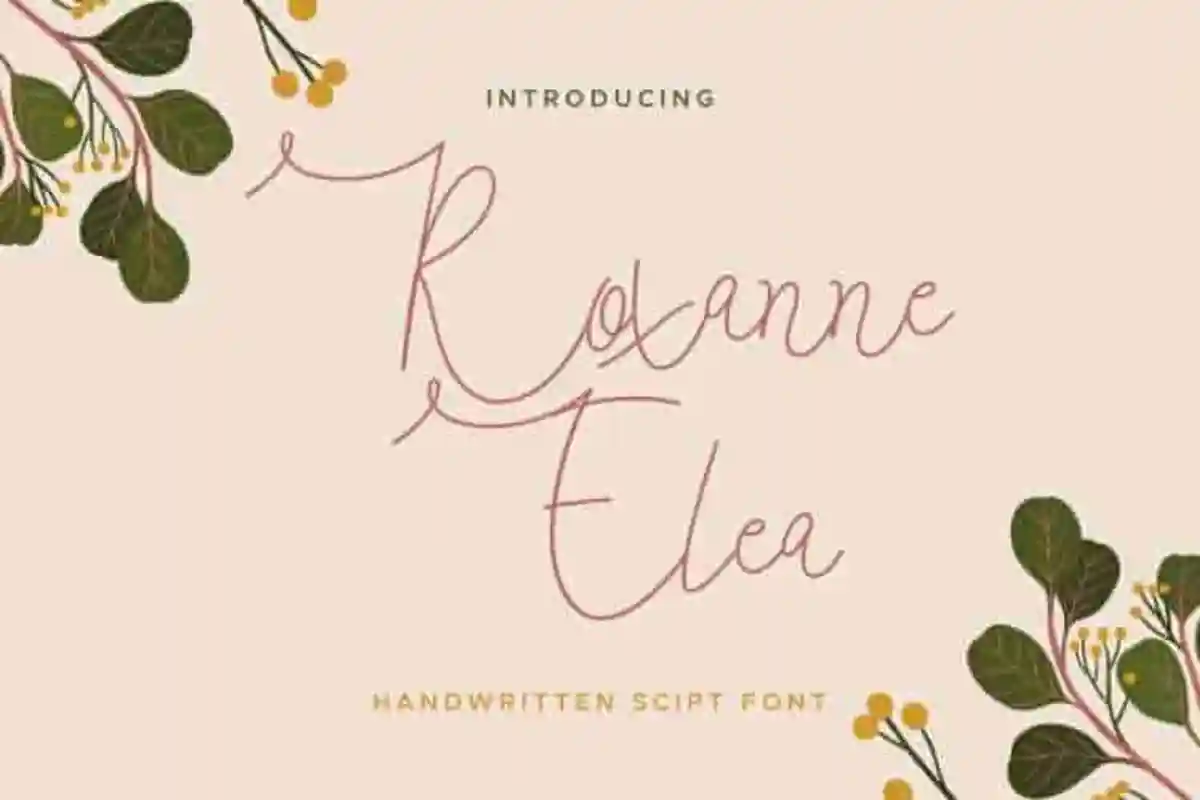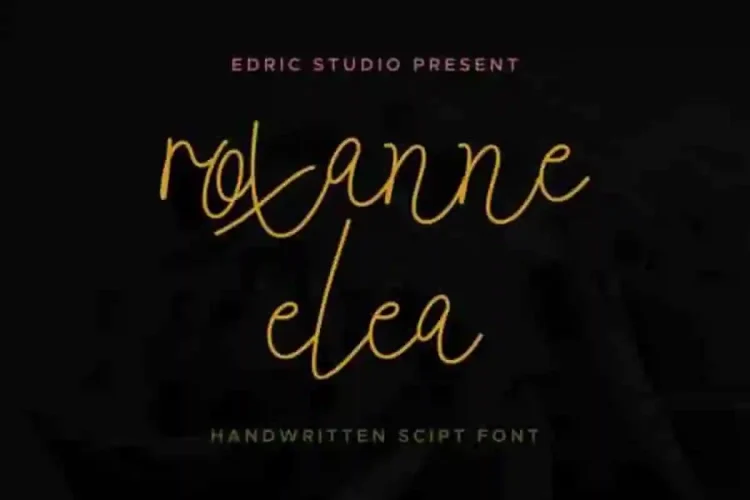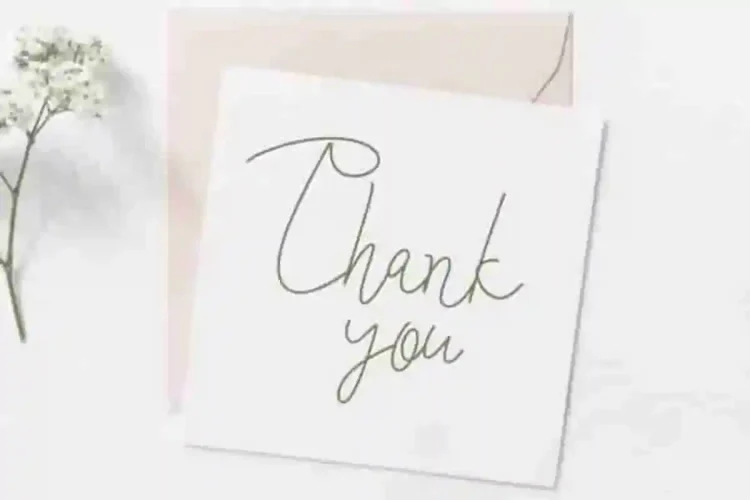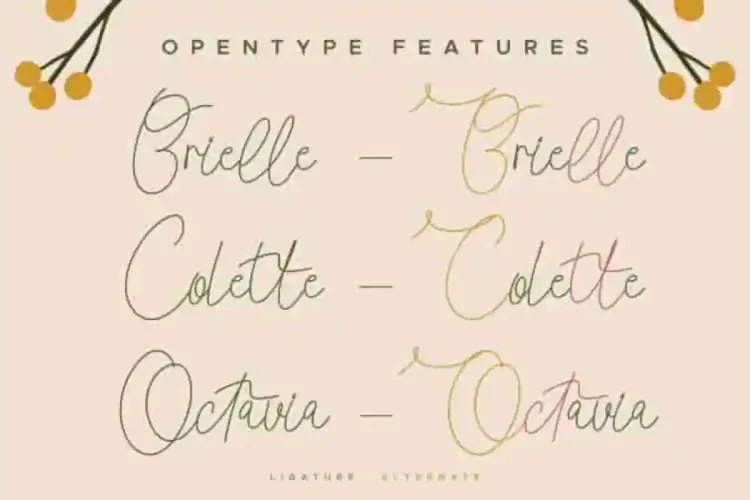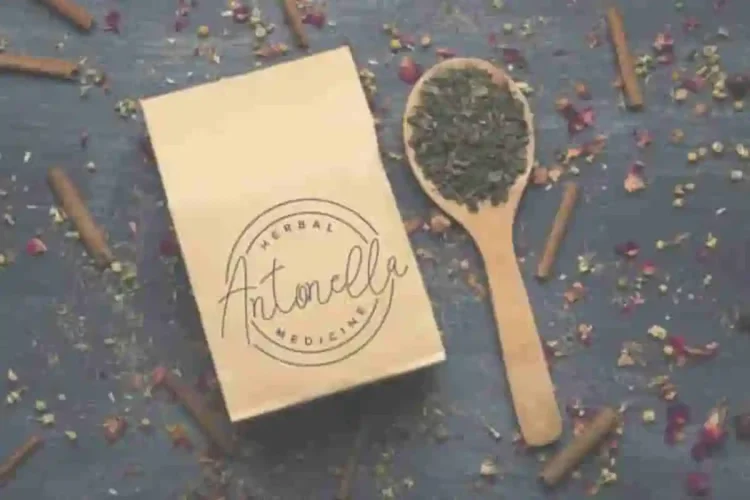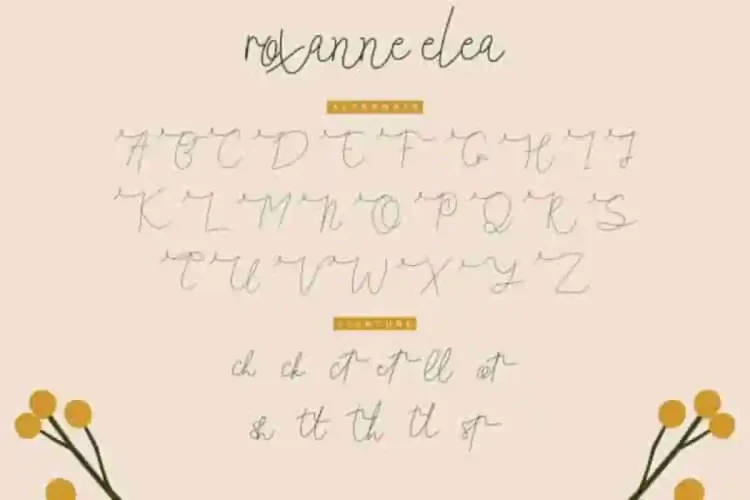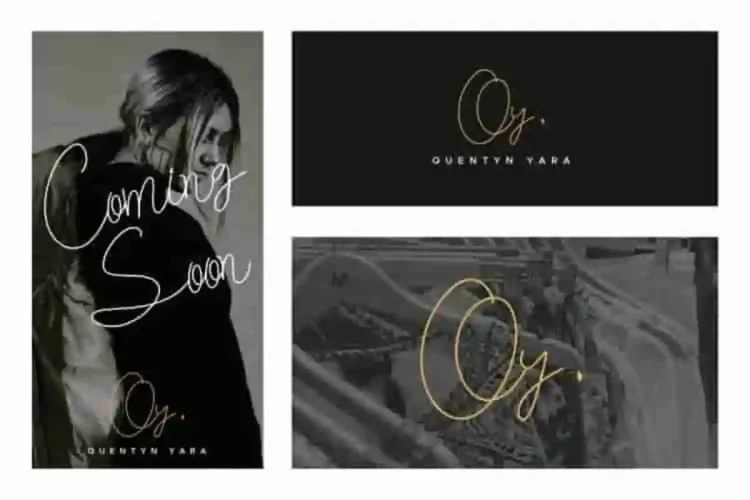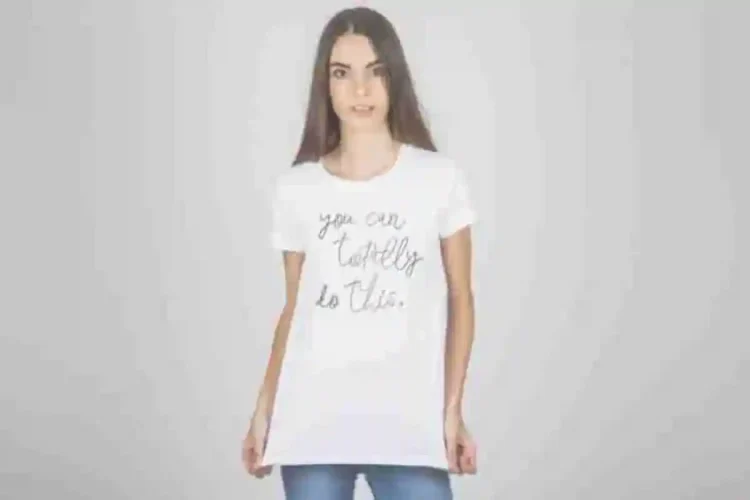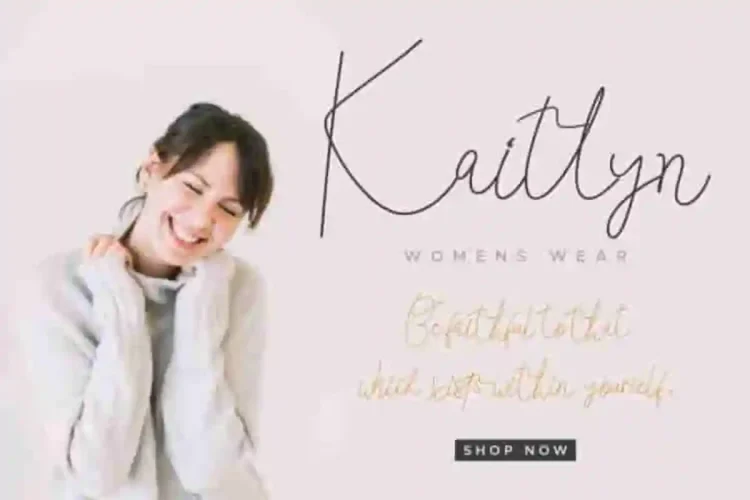
Roxanne Elea Calligraphy Font
Roxanne Elea Calligraphy Font is a calligraphy font, handcrafted here in Indonesia. The artists of this beautiful typeface is Yasri and Sarah Suci.
Roxanne Elea  Calligraphy is an unique script script dont with monoline style. This font has a stunning characters set, perfectly managed with well spaced and kerning.
Roxanne Elea Calligraphy will be great for any projects including : branding, logo, stationery, business card, signage, flyer, brochure etc. Almost all industries will be match for this typeface: wedding, events, rmakeup artist, travel, hotel, musician etc.